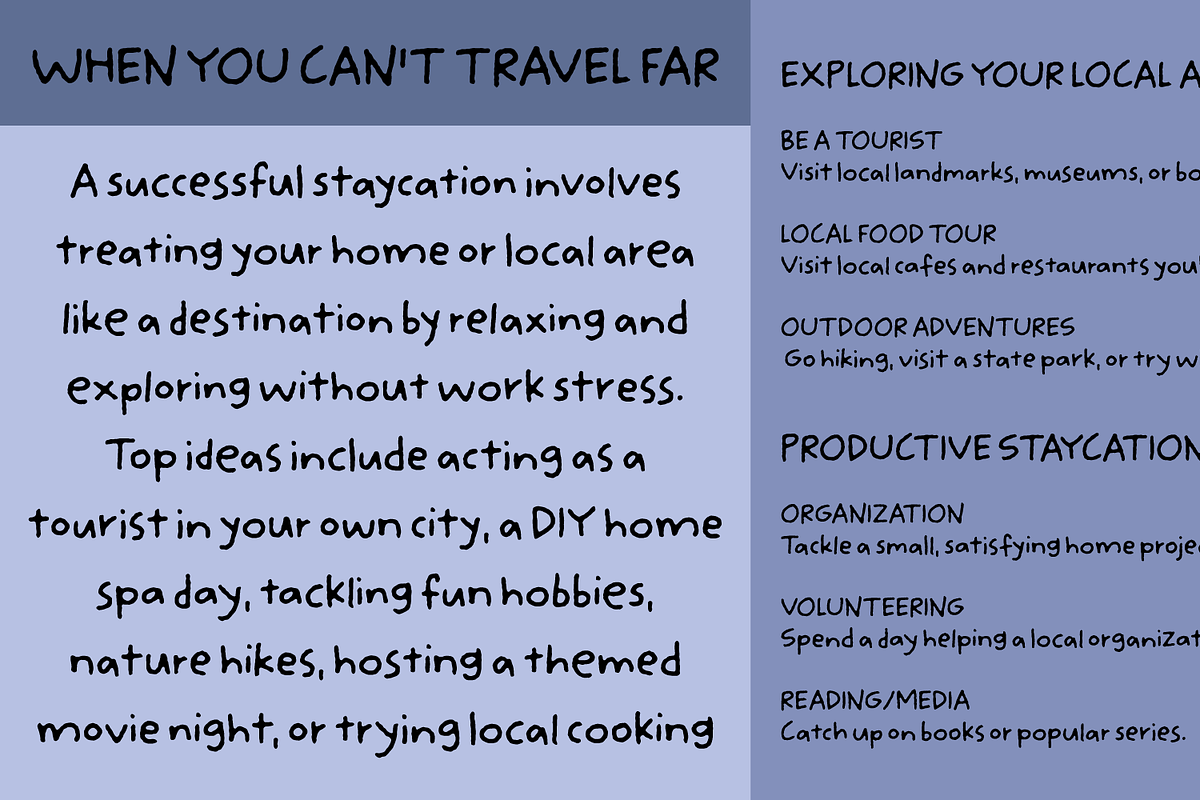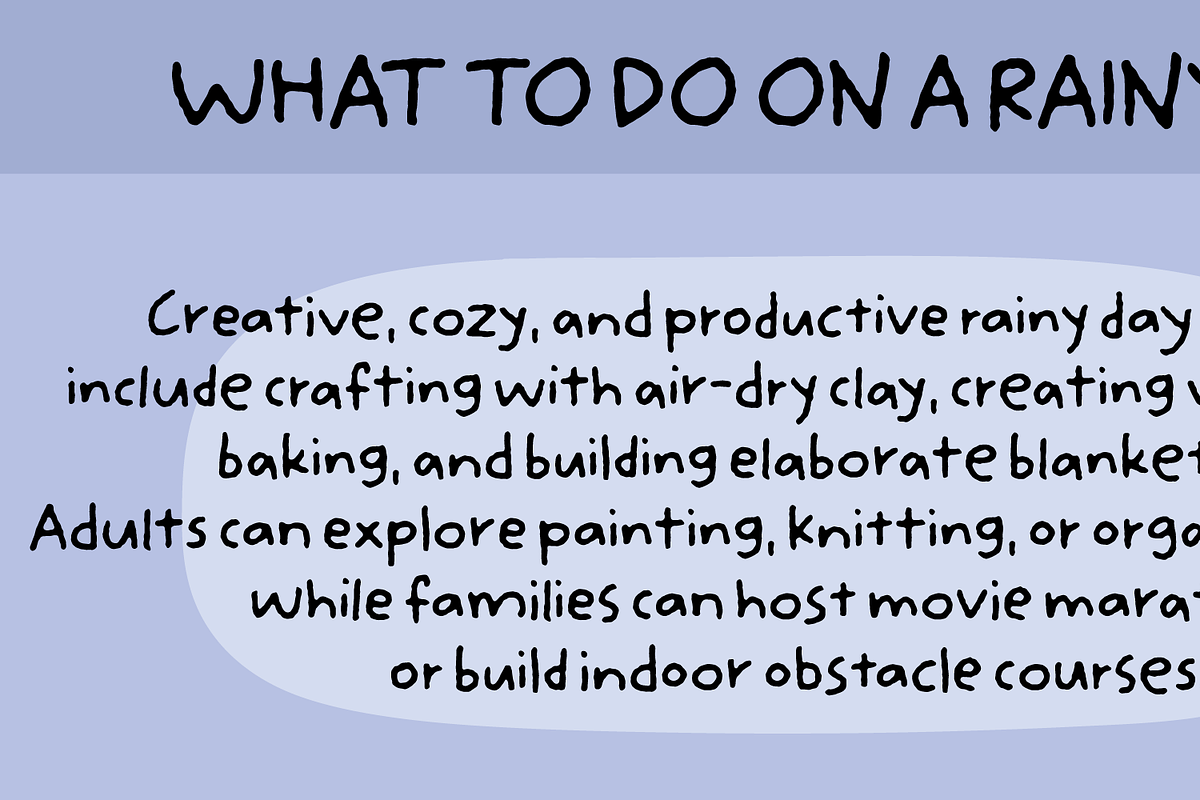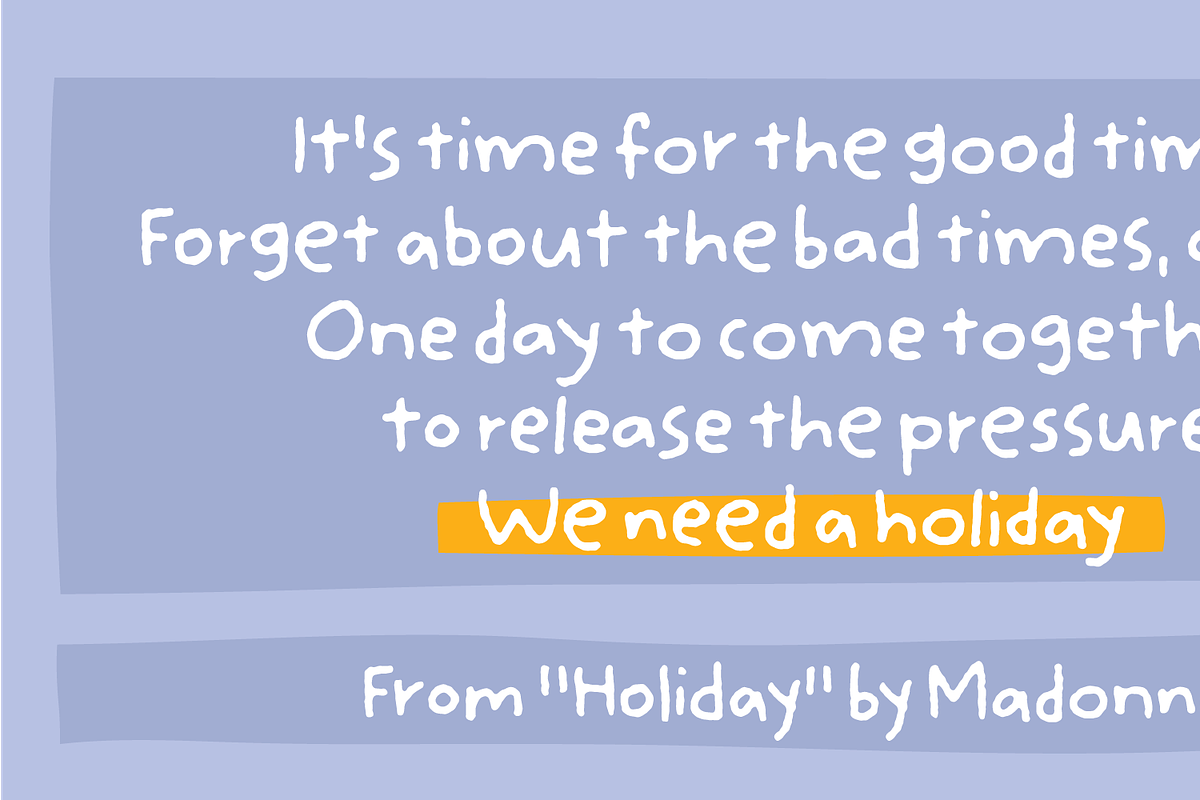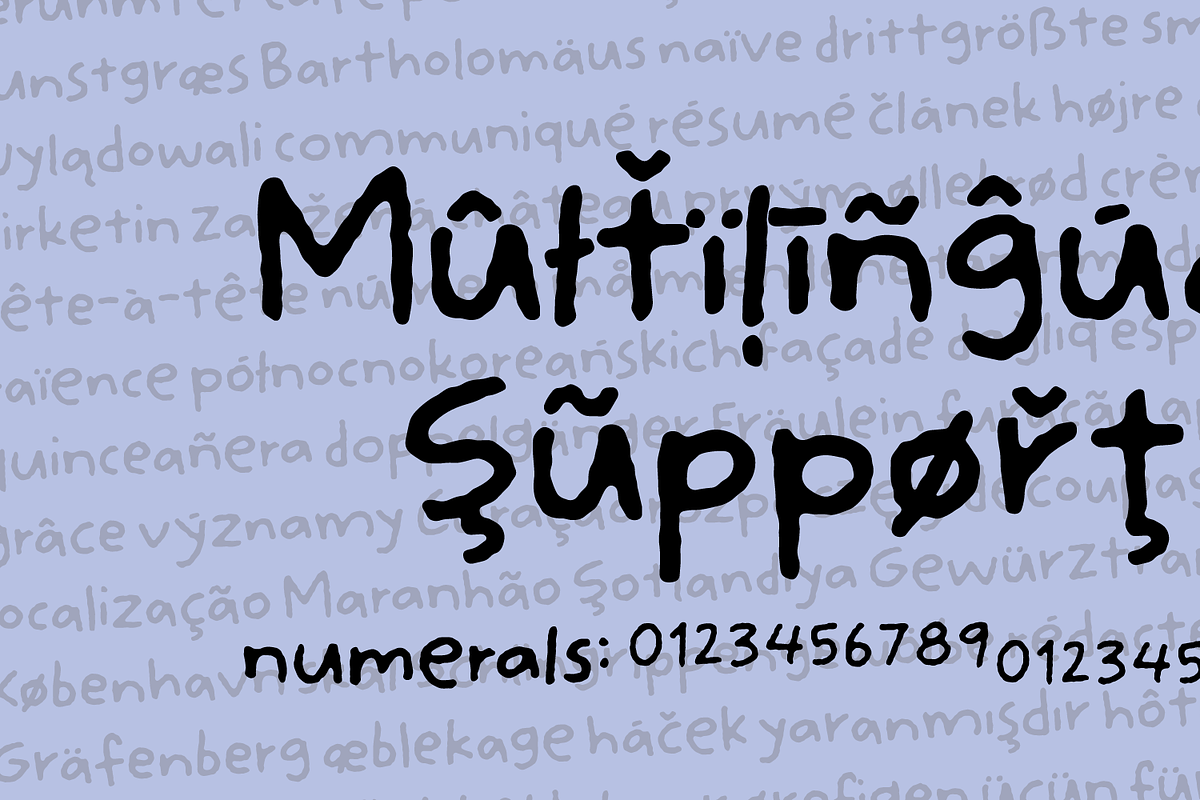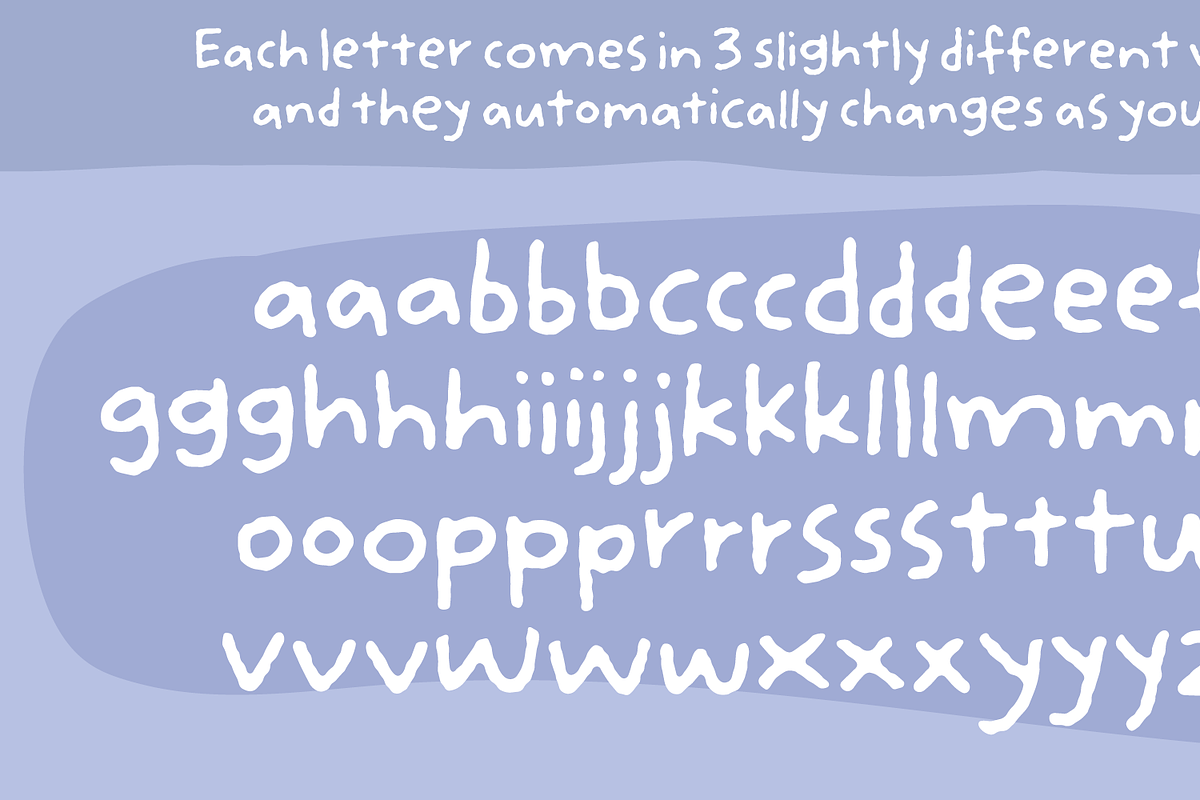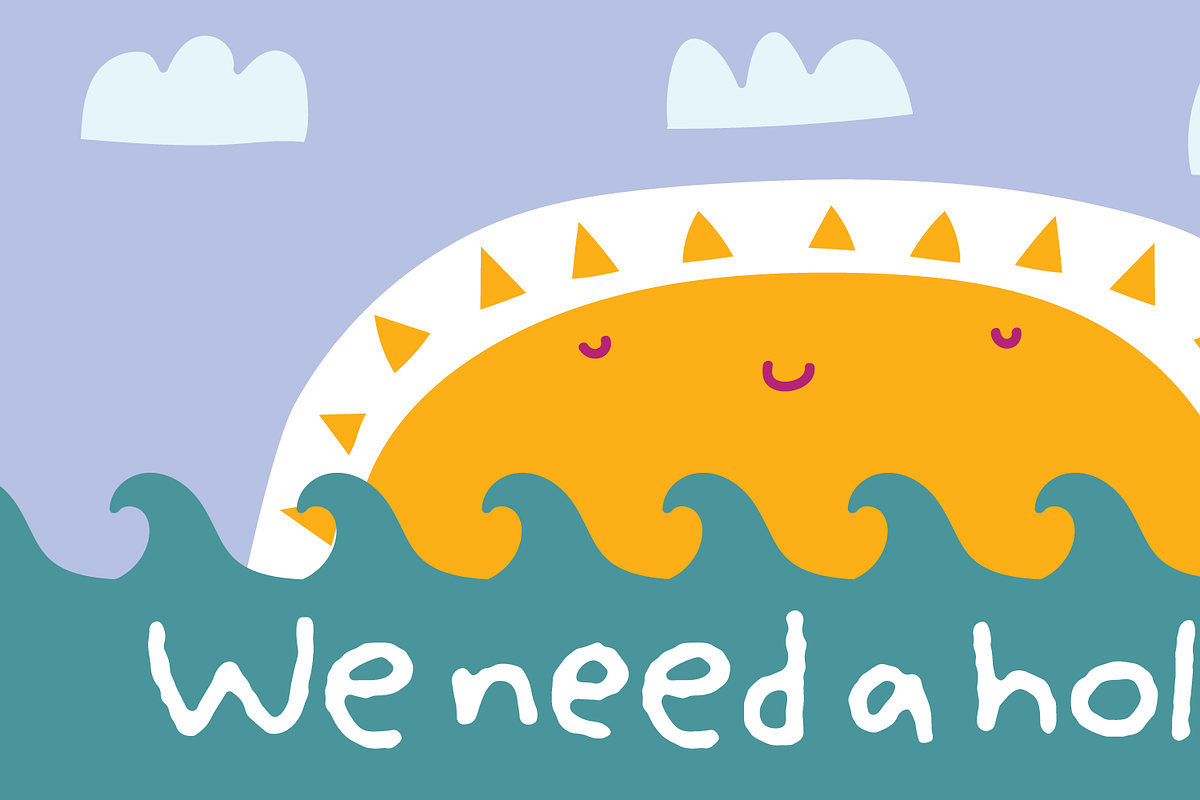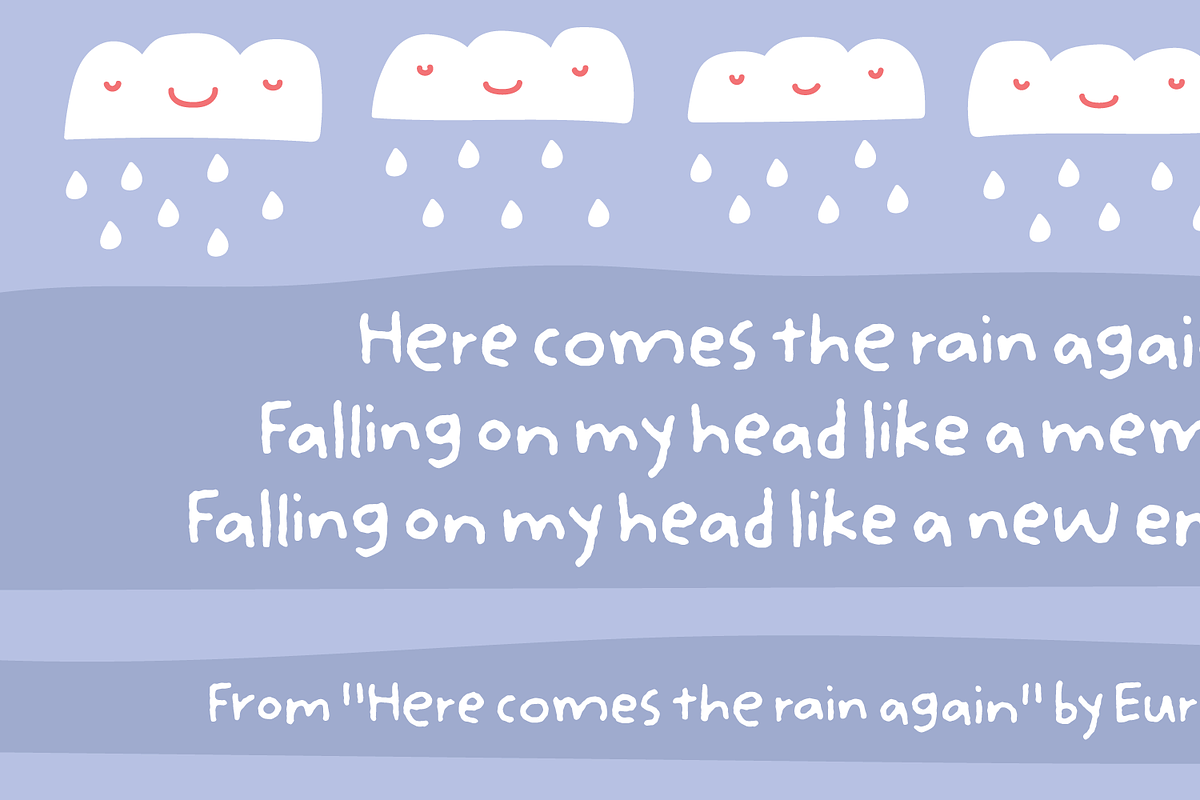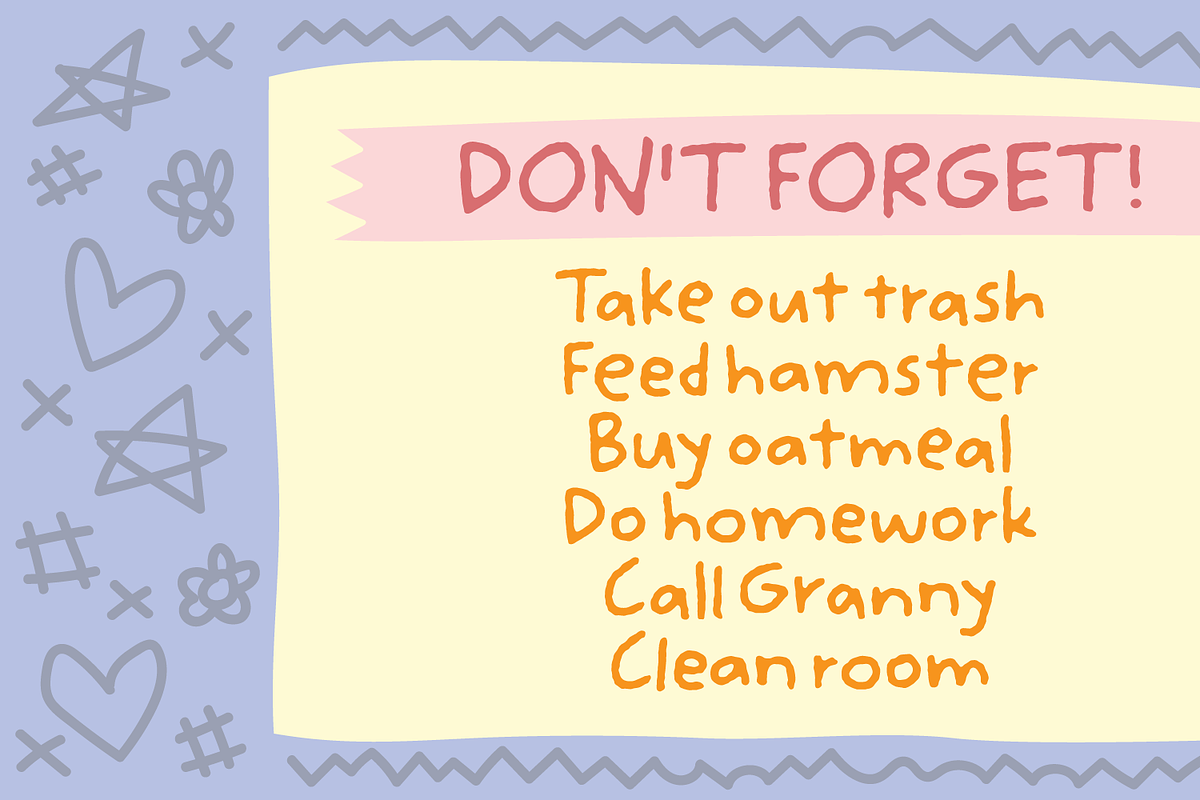
We Need A Holiday! ASAP! :)
Boy, I could use a vacation right now! Not necessarily abroad and for several weeks, but just a week or two!
Well, I love my job as a kindergarten teacher, but every once in a while I need to unplug and just go to the summerhouse, take long walks with the dog, go to the gym, go for a run, go to concerts, visit museums … and maybe even do a font or two - I mean, without thinking about getting up early tomorrow!
Maybe I should do a list of good things to do when having some time off - and maybe I should use the “We need a holiday” font?! Why? Because it has a nice look, when doing massive texts or notepad-like designs. It’s somewhat blurry and crunchy lines makes you just want to read more of what the text says! :)
Well, of course “We need a holiday” has multilingual support, and I have also included 3 different versions of each lowercase letter, which makes your text more lively, vivid and organic!